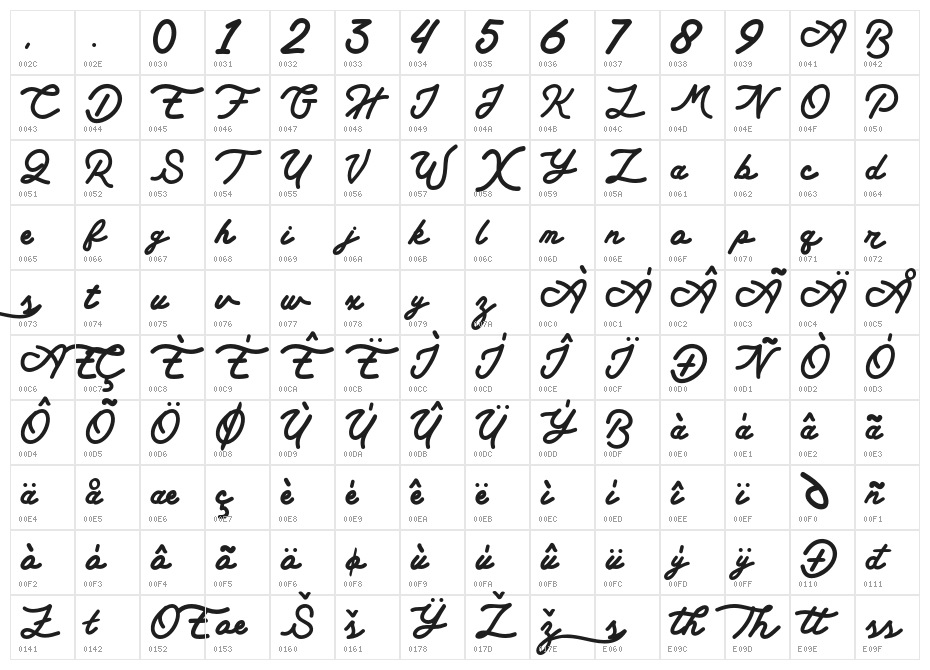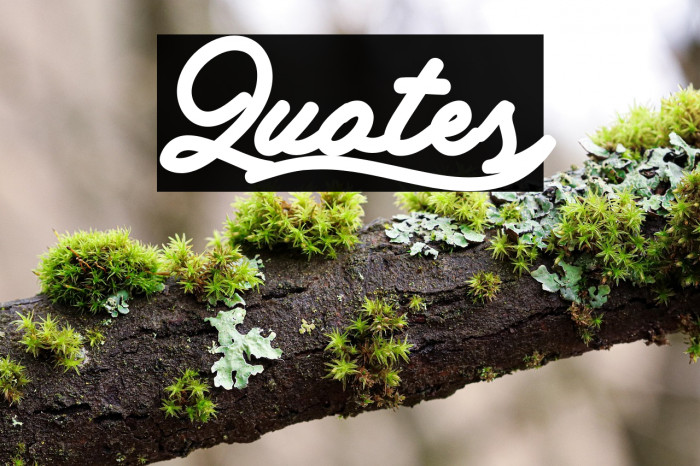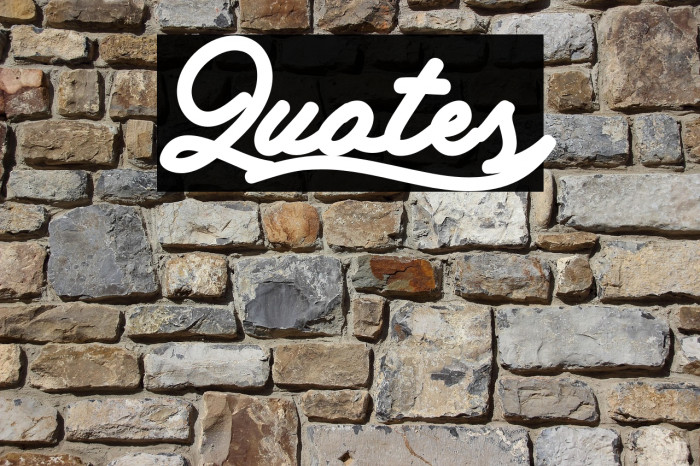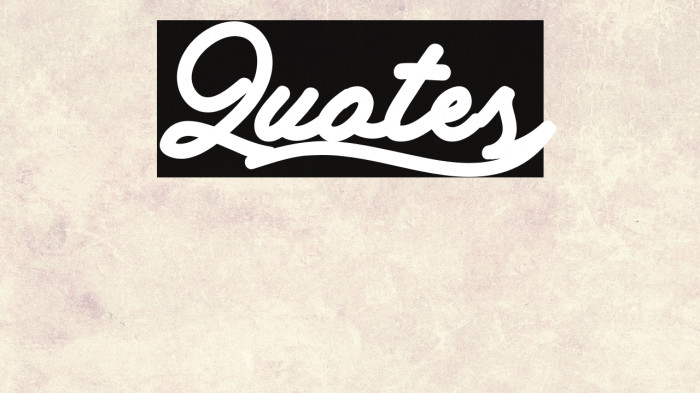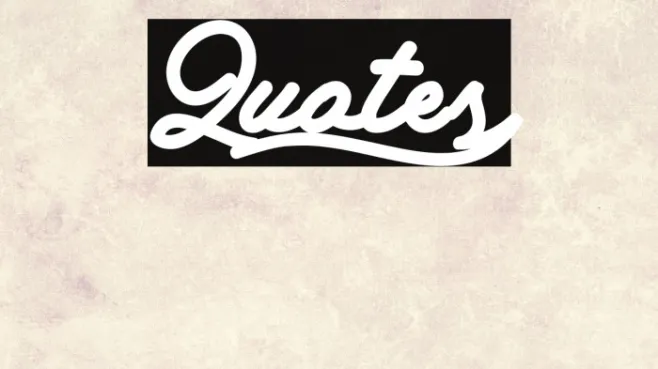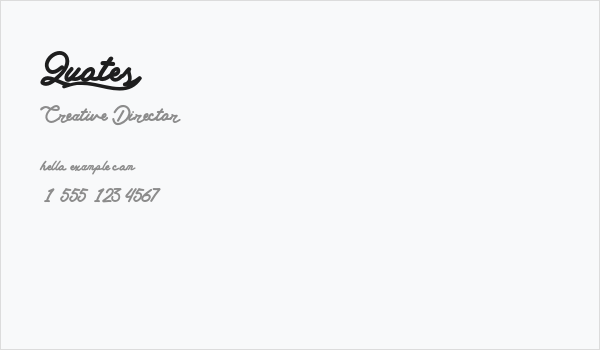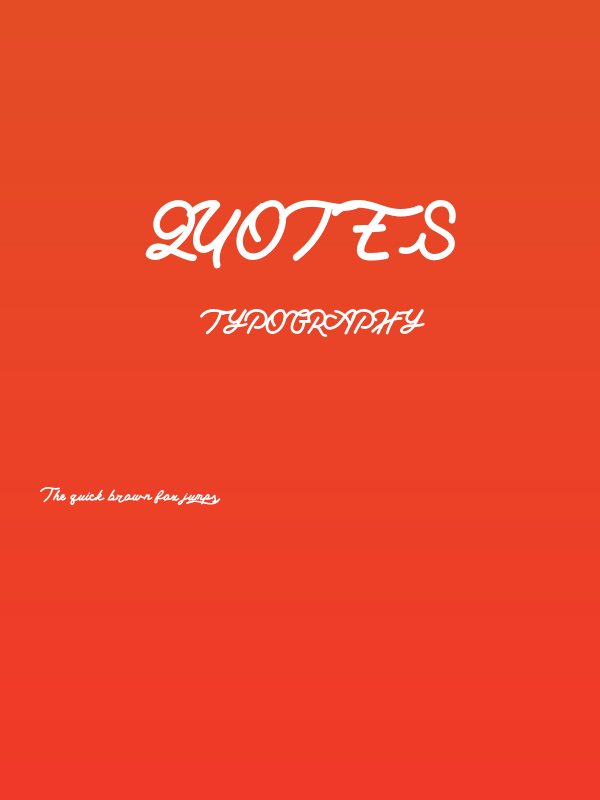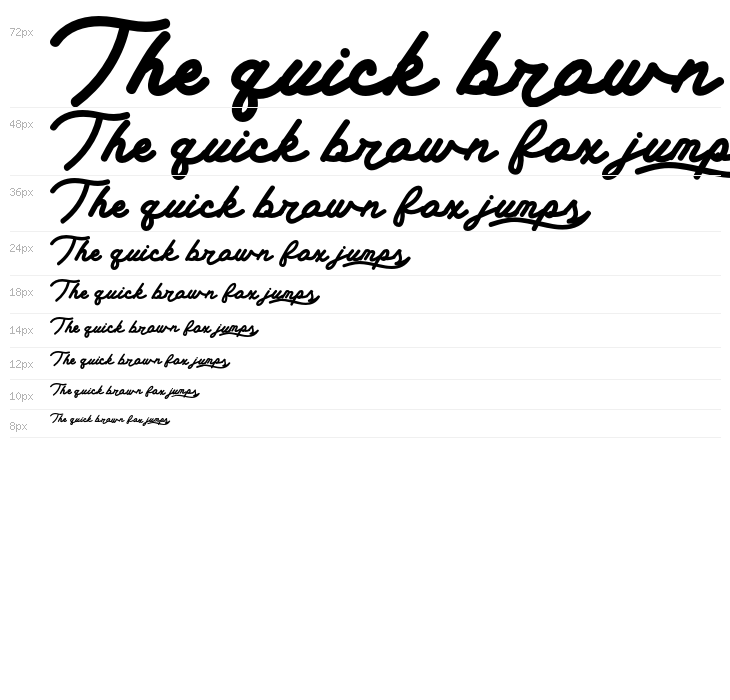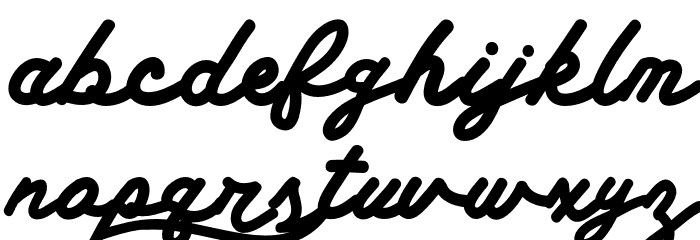
Quotes Font
Quotes Description
This font exudes a lively and dynamic character with its cursive script style. The letters are interconnected, creating a fluid and continuous flow that mimics natural handwriting. The uppercase letters are elegantly looped and slightly slanted, adding a touch of sophistication. The lowercase letters maintain a consistent rhythm, enhancing readability while retaining an artistic flair. The numerals are bold and clear, ensuring they stand out within the text. This font's overall appearance is both playful and refined, making it suitable for a variety of creative applications. Its bold strokes and smooth curves make it ideal for projects that require a personal touch or a sense of elegance.